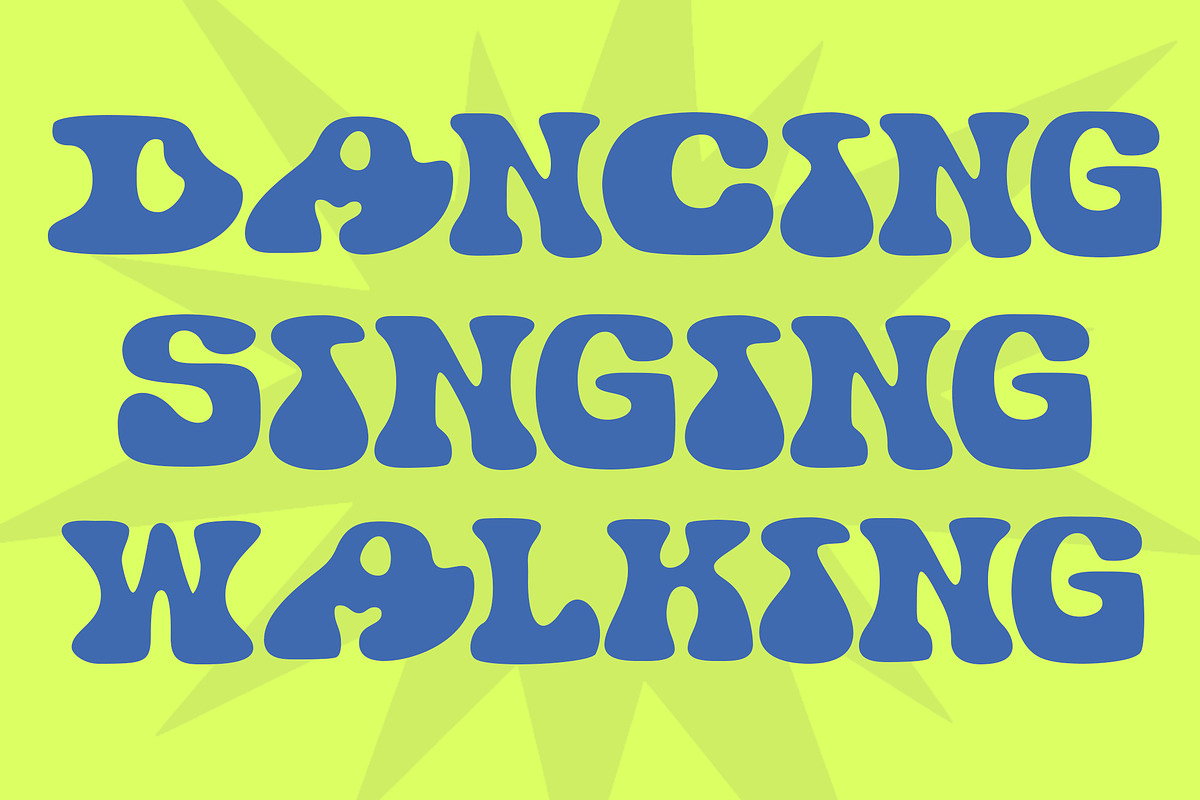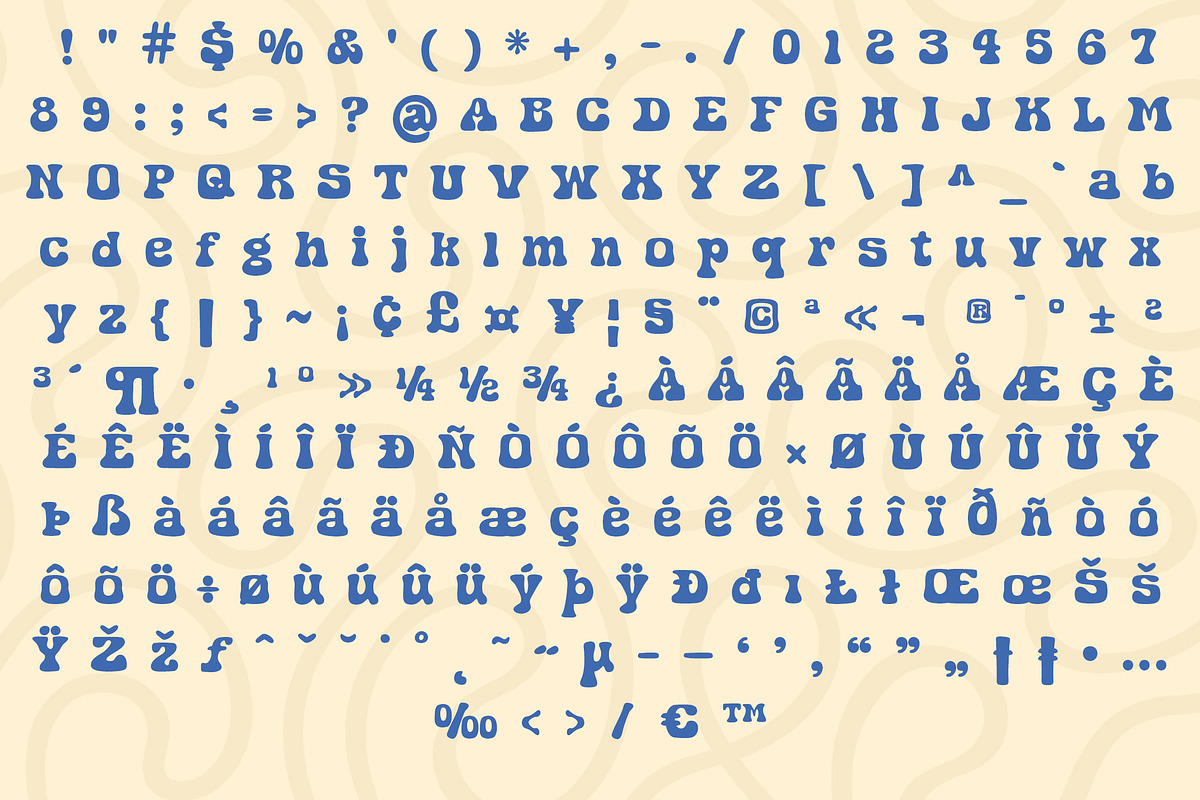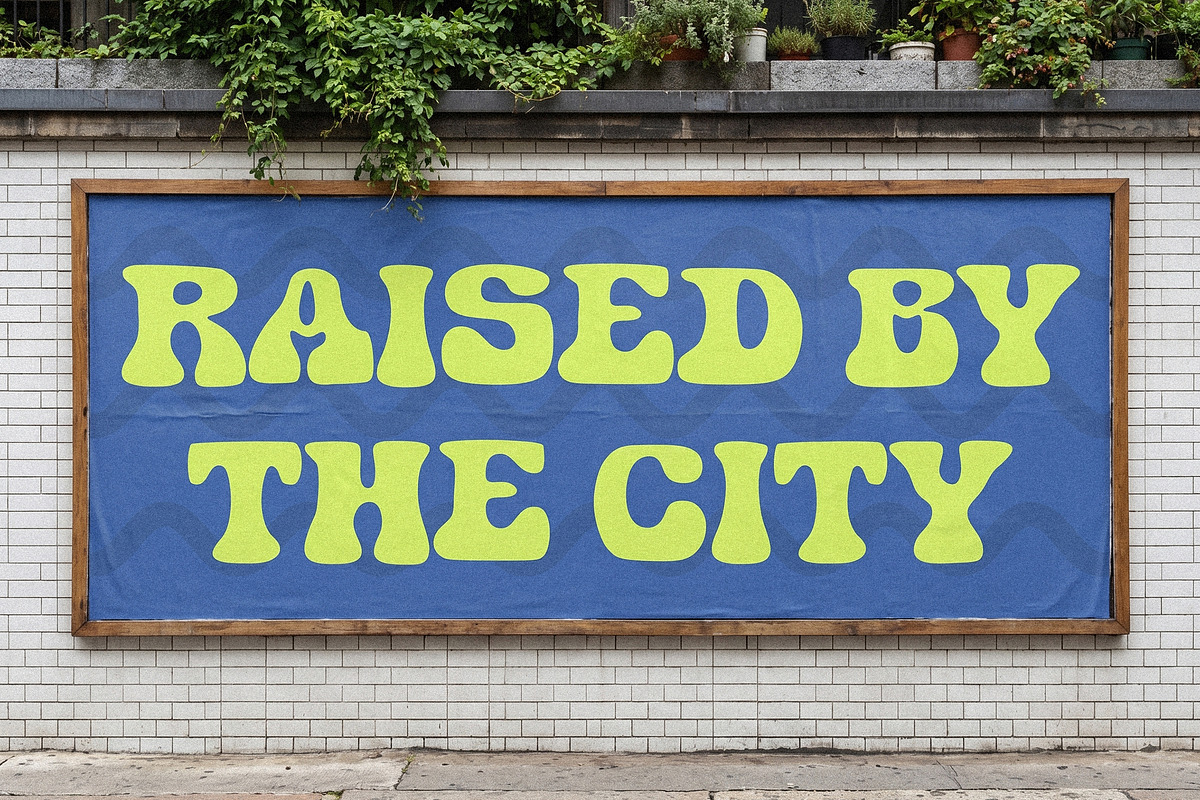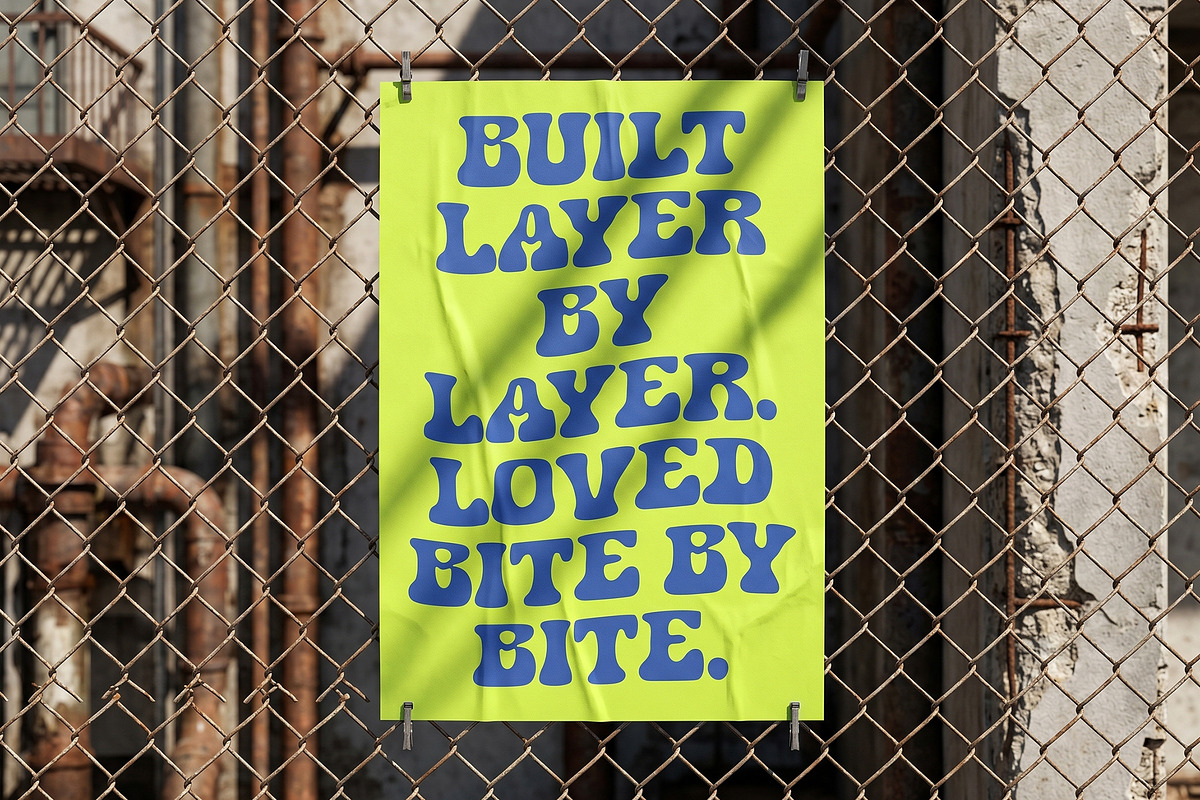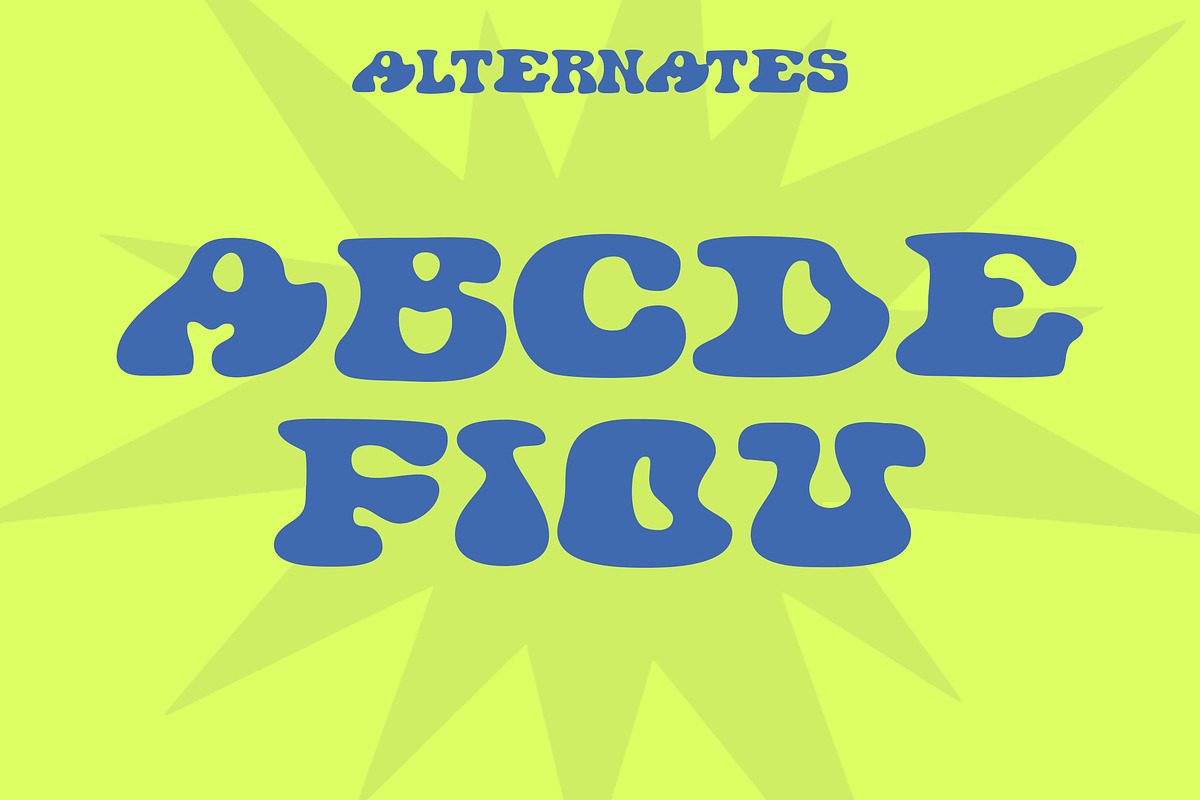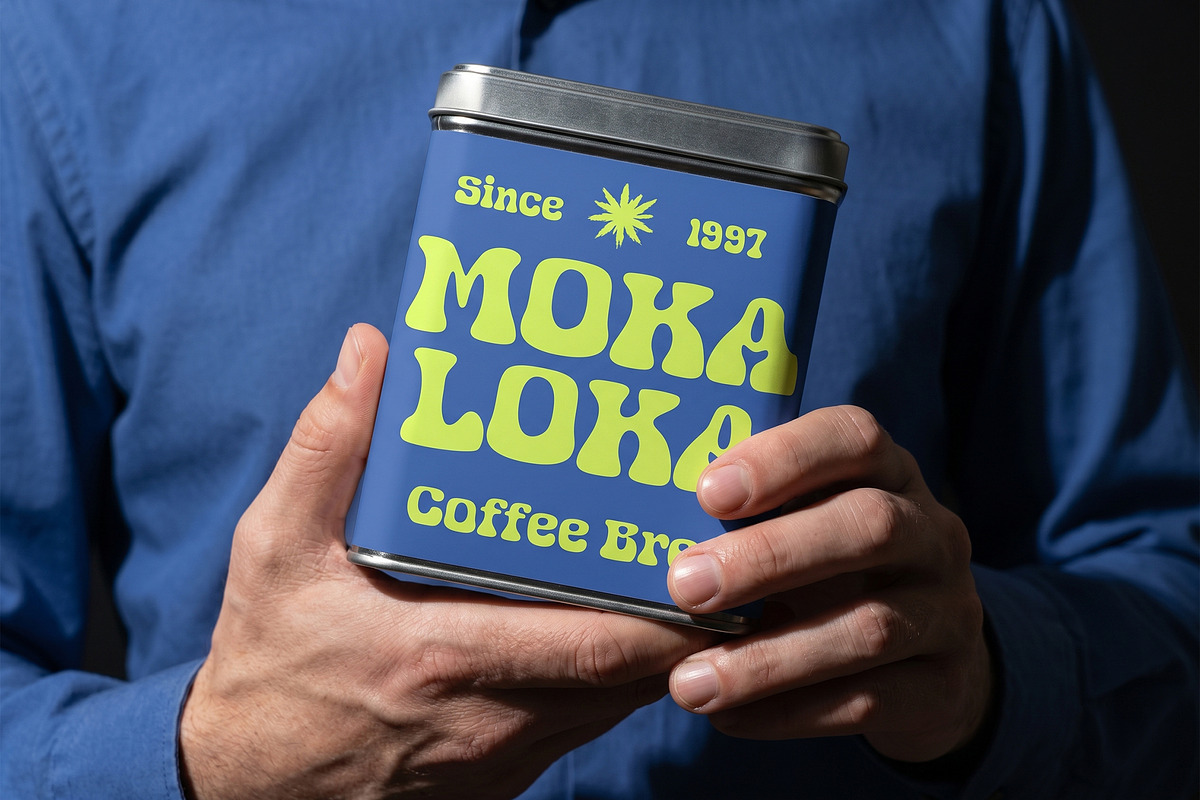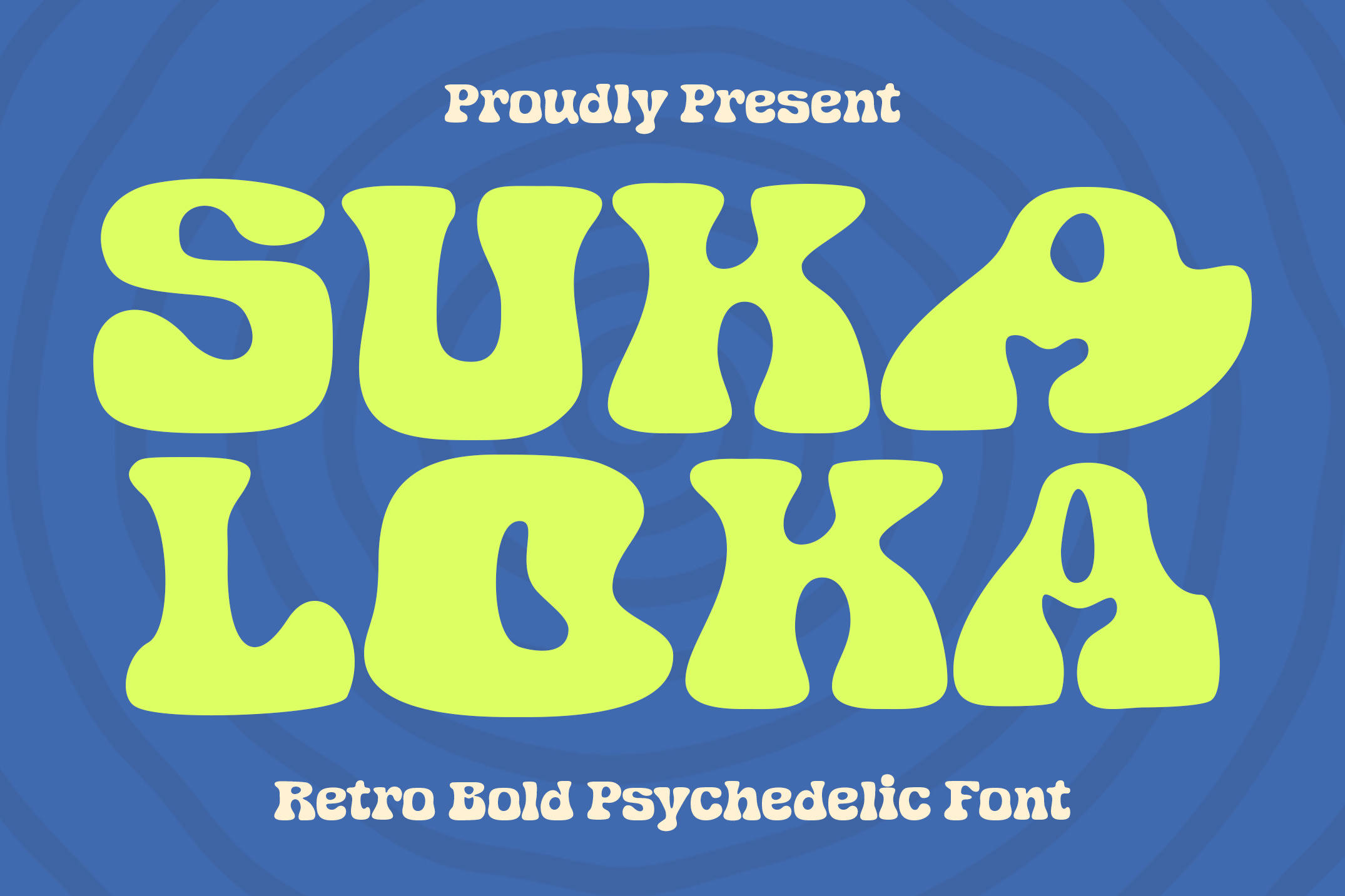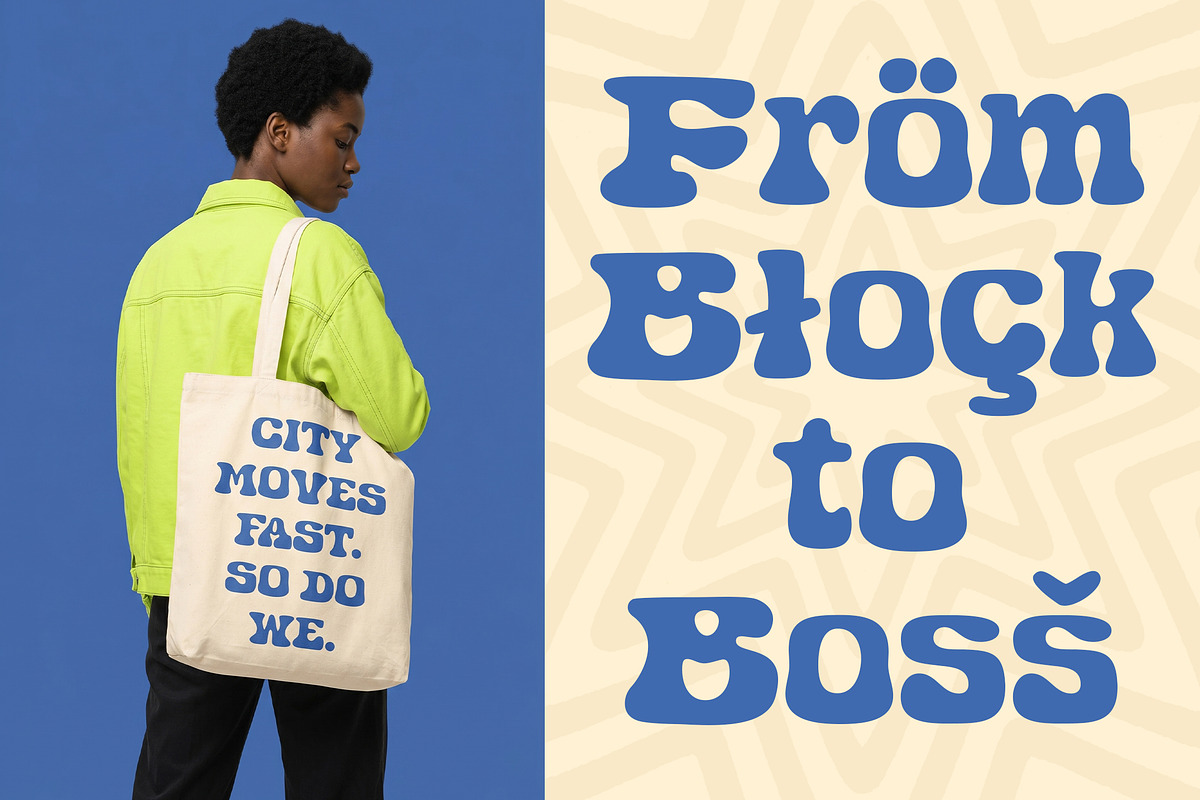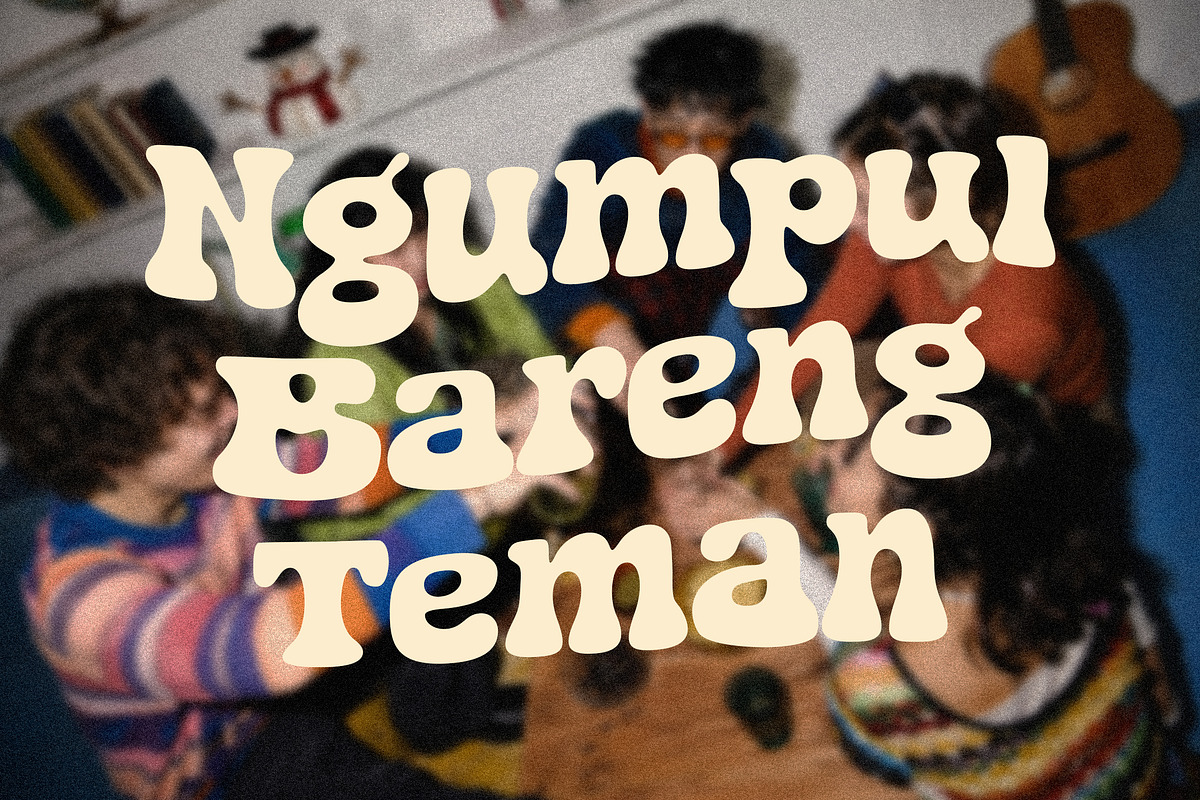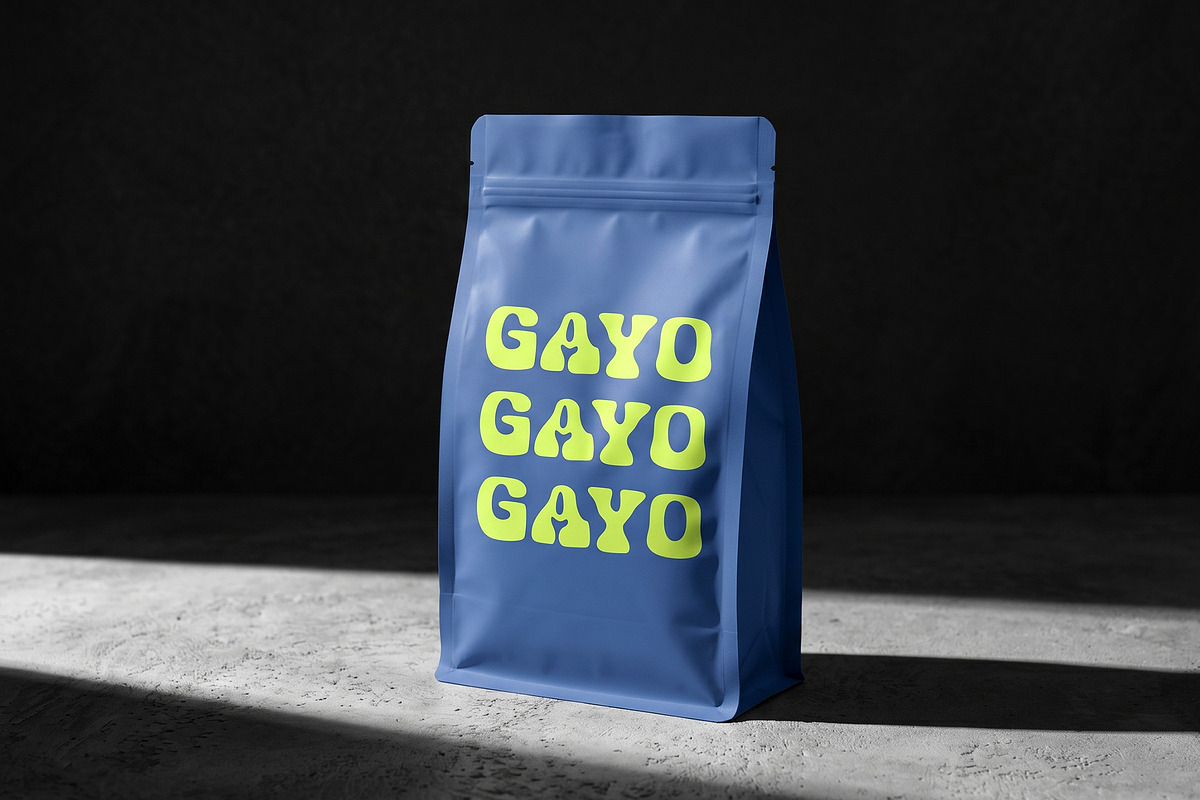
Retro Bold Psychedelic Font
Suka Loka is a bold retro display font inspired by the vibrant visual culture of the late 60s and 70s psychedelic era. Featuring chunky letterforms, flowing curves, and playful organic shapes, this typeface delivers a strong nostalgic character while remaining highly legible and versatile for modern design projects.
Designed with a balance between groovy expression and functional readability, Suka Loka works beautifully for branding, packaging, posters, album covers, café identities, social media graphics, stickers, and creative merchandise. The font includes a collection of stylistic alternates that allow designers to create unique and eye-catching typography compositions with ease.
Whether you're crafting a vintage-inspired logo, a colorful festival poster, or a bold packaging design, Suka Loka brings warmth, personality, and retro energy to every project.
* Uppercase & Lowercase
* Numbers & Punctuation
* Multilingual Support
* Stylistic Alternates